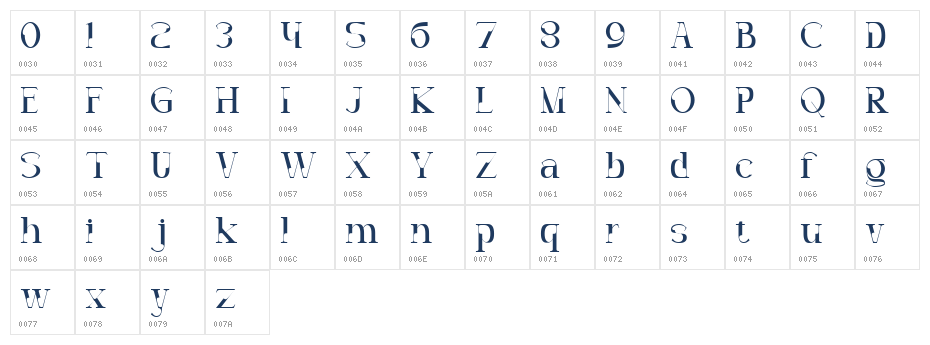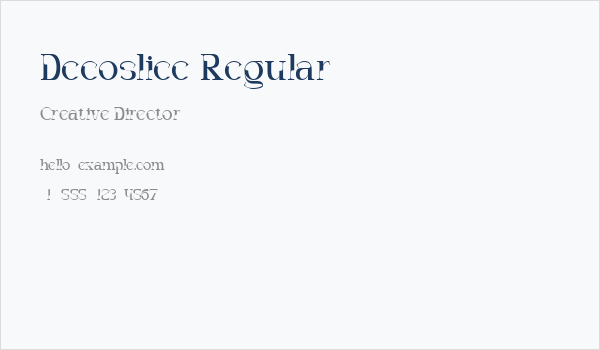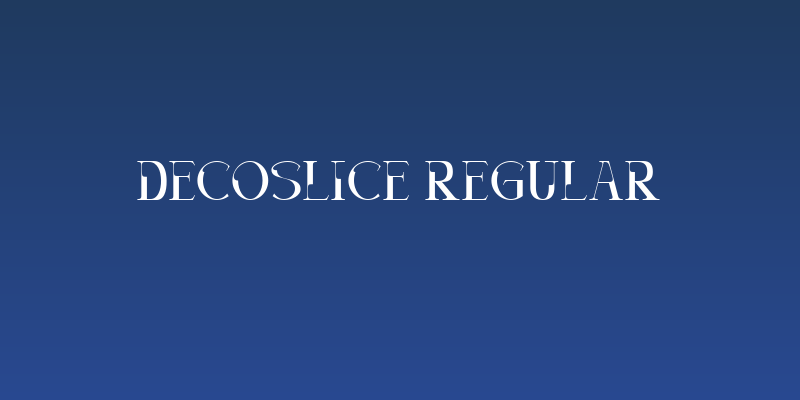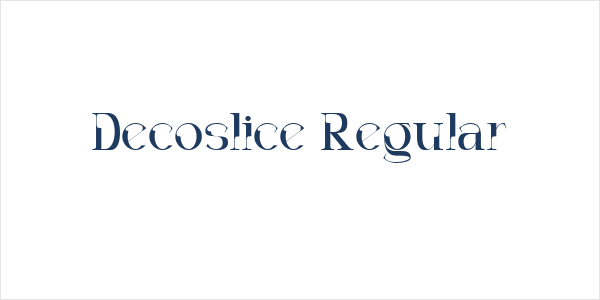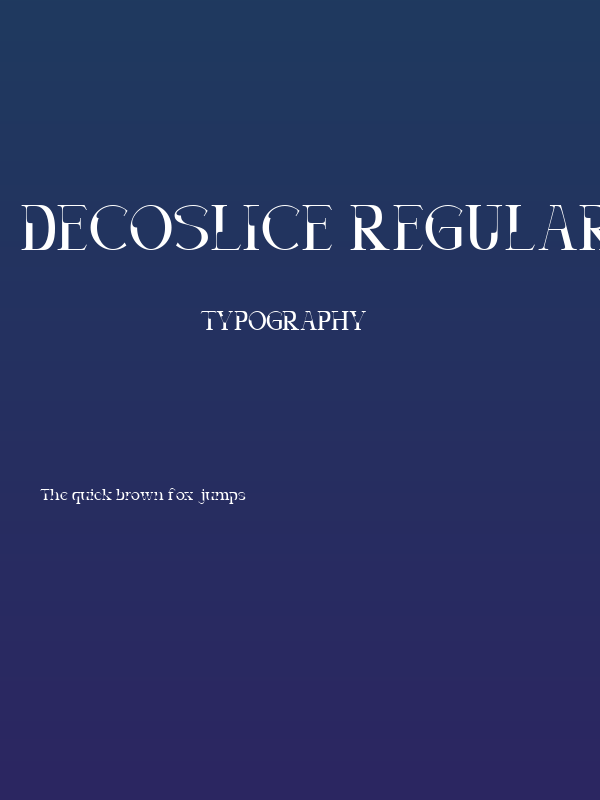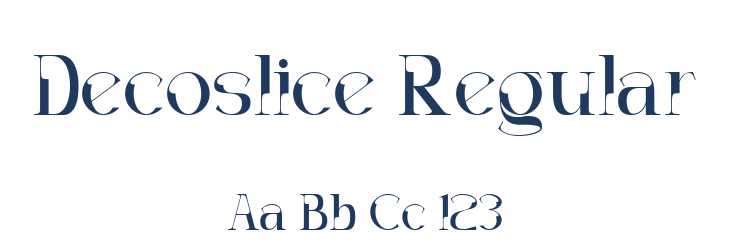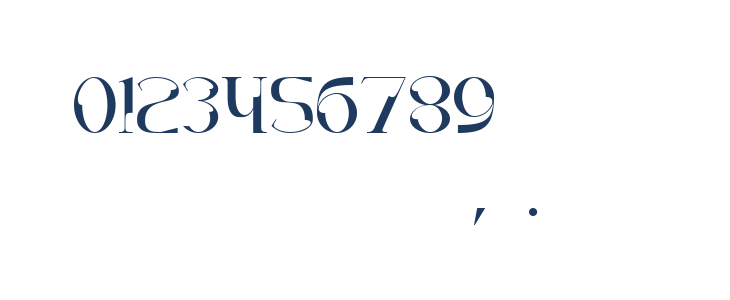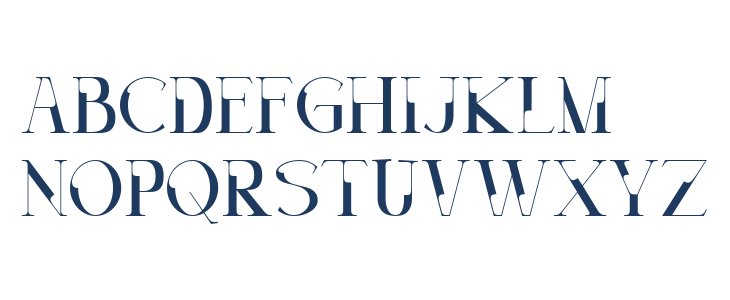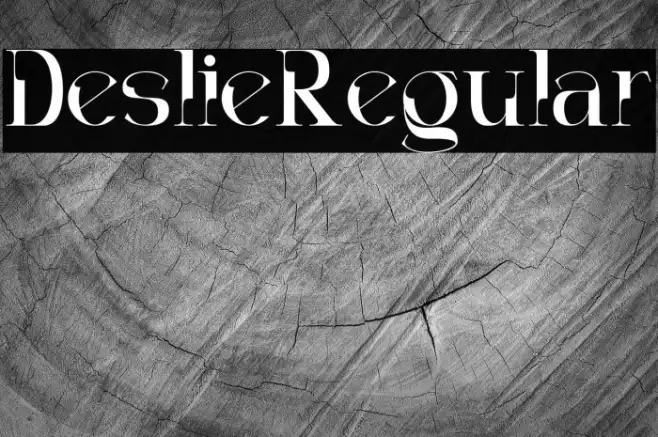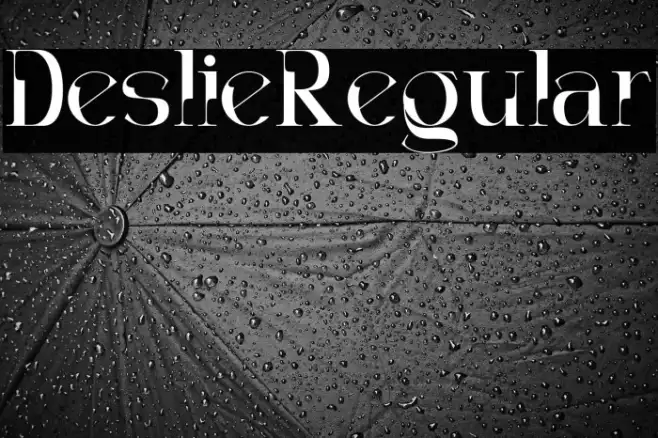
Decoslice Regular Font
Decoslice Regular Description
A decorative serif font with high contrast between thick and thin strokes, featuring elegant, elongated serifs and a sophisticated style.
| Overall Style | Elegant, Vintage, Classic |
| Use Case | Headlines, Invitations, Branding, Editorial |